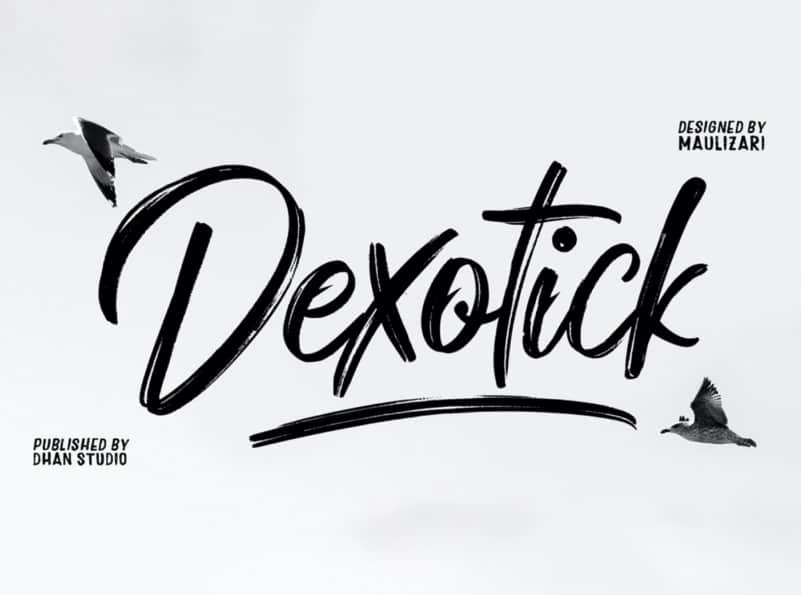
Dexotick Brush Font
Dexotick is new font brushed very interesting, also provided some font duo and swashes extra. Perfect for projects brands, logos, product packaging, etc.
It’s a handwritten font so it has an attractive texture, if you use it in your design project it might be very suitable, this font also has unique characters, there are some letters that are intentionally made without connections so it looks strange but unique and interesting.